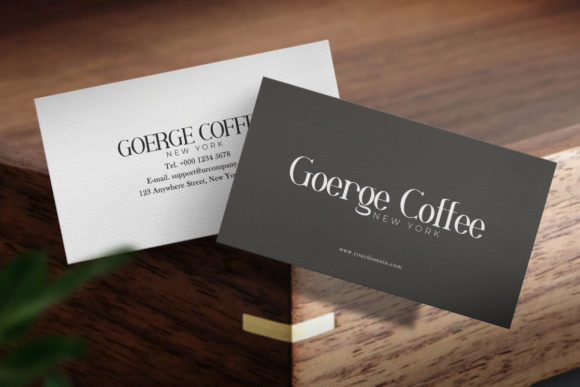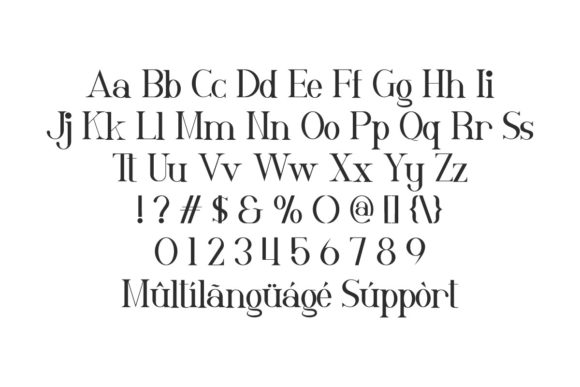
Introduction to Clavier Font
Clavier comes with a classy style appearance on each letter.
Add this assertive and cool serif font to your favorite creations, both formal and informal, and they will be instantly enhanced .
Why Choose Clavier Font?